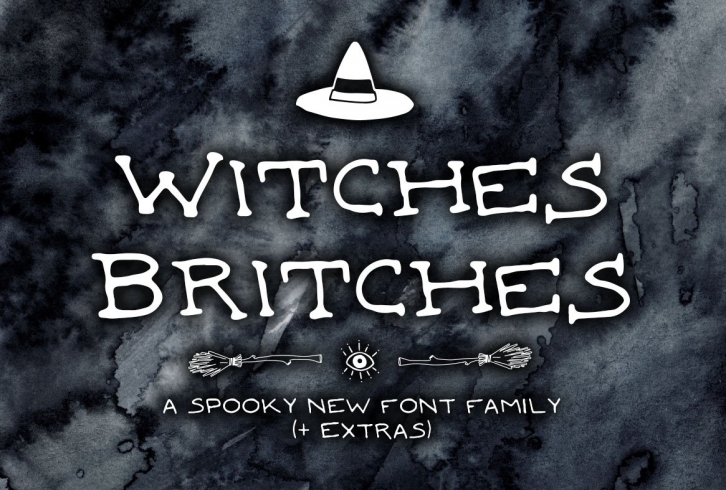
Bubble bubble, toil and trouble! Introducing a spooky new font family, Witches Britches!
Witches Britches is an all-caps style handwritten font consisting of serif and sans serif variations and features language support characters. Click the preview image to see all available characters.
There's also extra goodies packed inside! Hand drawn vector elements, tilable patterns and textures, and a bonus card template ready to edit. Keep reading to see what's included.